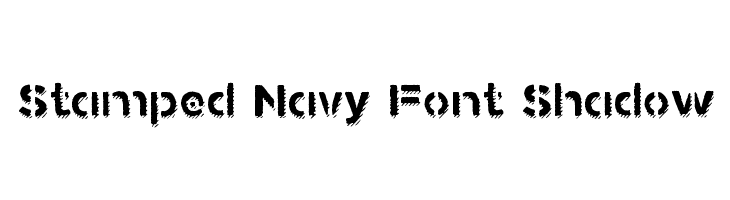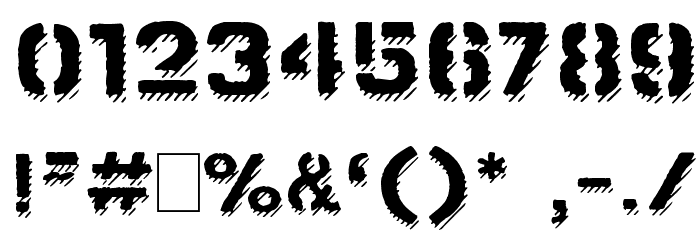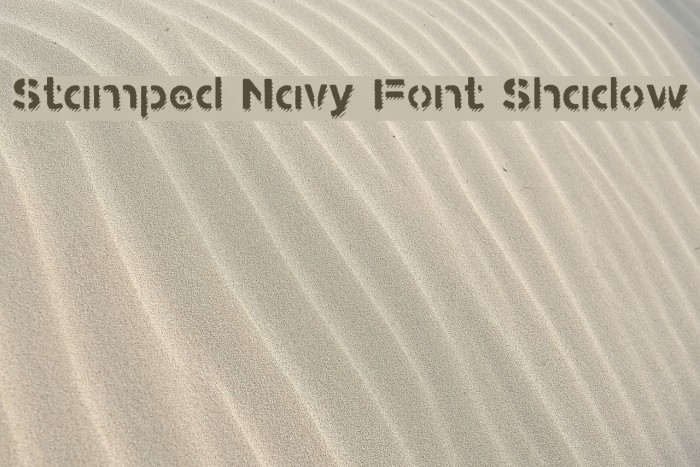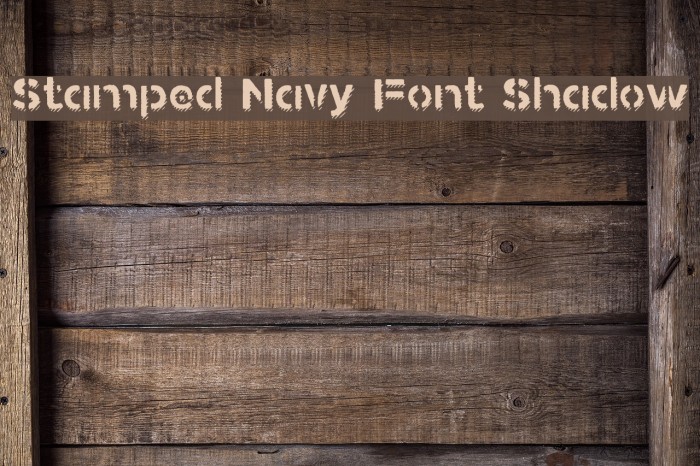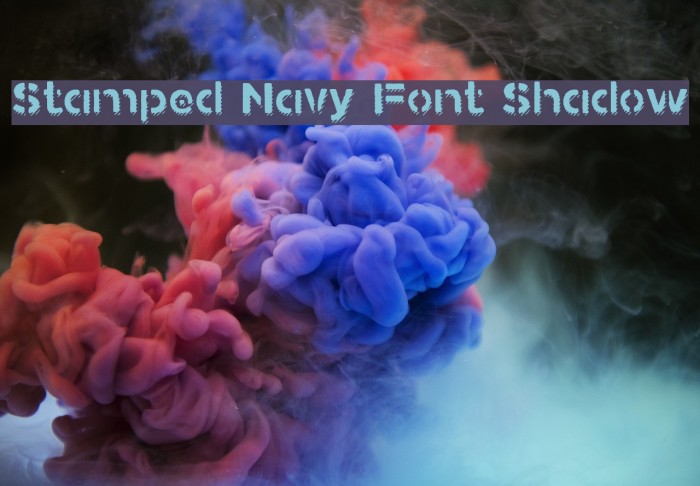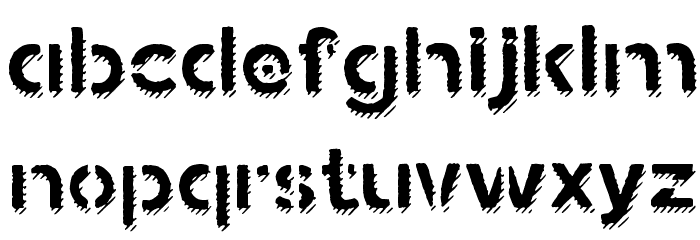
Stamped Navy Font Shadow Font
This font features a bold, shadowed design that gives each character a stamped appearance. The uppercase and lowercase letters, along with numbers and special characters, are crafted with a distinct shadow effect that adds depth and dimension. The strokes are thick and consistent, creating a strong visual impact. The style is decorative and eye-catching, making it suitable for projects that require a standout typeface. The shadow effect is uniform across all characters, providing a cohesive look. This font is ideal for use in creative projects where a bold statement is needed.
A bold, shadowed font with a stamped, decorative style.
• Proposed Projects: Ideal for posters, logos, headlines, and branding materials that require a bold, eye-catching typeface.